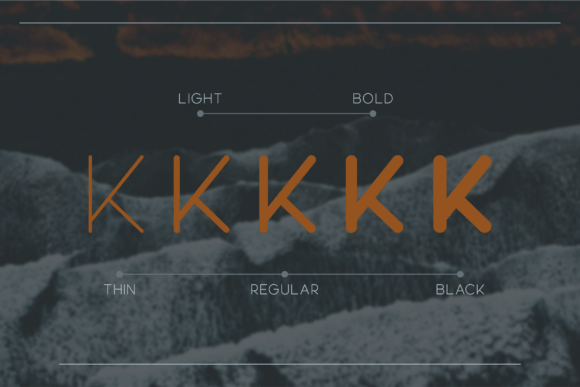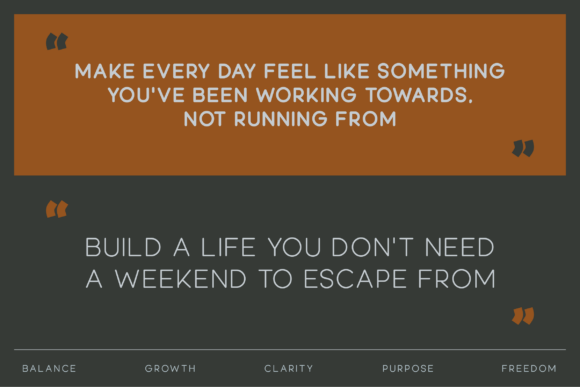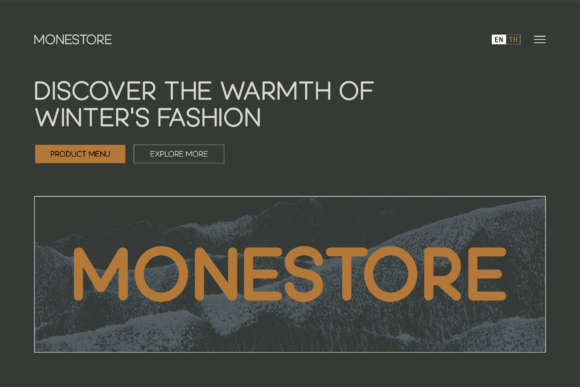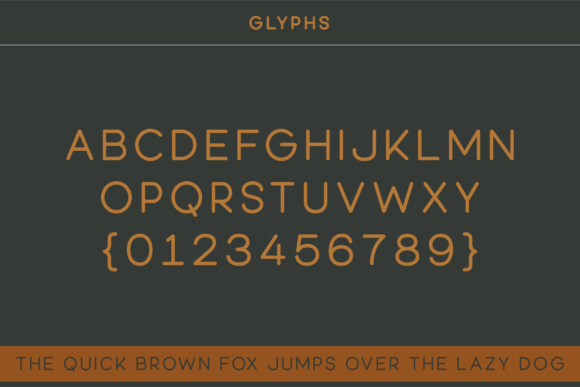
I still remember the frustration of working on a project, hours spent crafting the perfect design, only to be held back by one thing: the font. It was a client request – a modern, clean, and friendly look that I just couldn’t nail. The usual suspects – Arial, Helvetica, and Times New Roman – felt too bland, too overused, or just plain boring. That’s when I stumbled upon Artistry Rounded, a game-changing font family that has since become a staple in my design toolkit.
First Impressions: A Love Affair with Artistry Rounded
Artistry Rounded is a modern all-caps sans serif font family that ticks all the right boxes: clarity, warmth, and bold personality. Its soft-rounded edges and sleek, geometric construction make it both highly legible and aesthetically balanced. The font comes in five versatile weights – Thin, Light, Regular, Bold, and Black – making it adaptable to a wide range of creative projects.
What I Love About Artistry Rounded
- ✨ Clean and friendly vibe: Perfect for building a logo, packaging design, social media visuals, or high-impact headlines.
- ✅ Highly legible: Even at smaller font sizes, Artistry Rounded remains crisp and easy to read.
- 💡 Versatile weights: From Thin to Black, there’s a weight to suit every design need.
- 🎨 Aesthetically balanced: The soft-rounded edges add a touch of warmth to any design.
While Artistry Rounded is an excellent font, it’s not without its quirks:
- 🤔 Limited use of italics: As an all-caps font, Artistry Rounded doesn’t offer traditional italics.
- ⚠️ Glyph limitations: Some users may find the glyph set limited compared to other font families.
The creator of Artistry Rounded aimed to craft a font family that embodies both modernity and approachability. Inspired by the world of art and design, they sought to create a font that would bring a touch of sophistication and friendliness to any project. The result is a versatile and beautiful font that’s perfect for designers, crafters, and creative hobbyists alike.
| Font Name | Artistry Rounded Font |
| Author | Nan Design |
| What type of projects is Artistry Rounded best suited for? | Artistry Rounded is perfect for a wide range of projects, including logos, packaging design, social media visuals, and high-impact headlines. |
| Does Artistry Rounded support OpenType features? | Yes, Artistry Rounded supports OpenType features, including stylistic alternates, glyphs, and ligatures. |